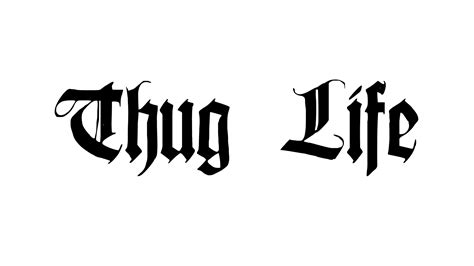
Thug Life Font. Thug life font is very flexible for just about any display purpose from merchandise, logos, brands, artworks, titles, subtitles, body texts, digital arts,. Discover a world of captivating typography for your creative projects.